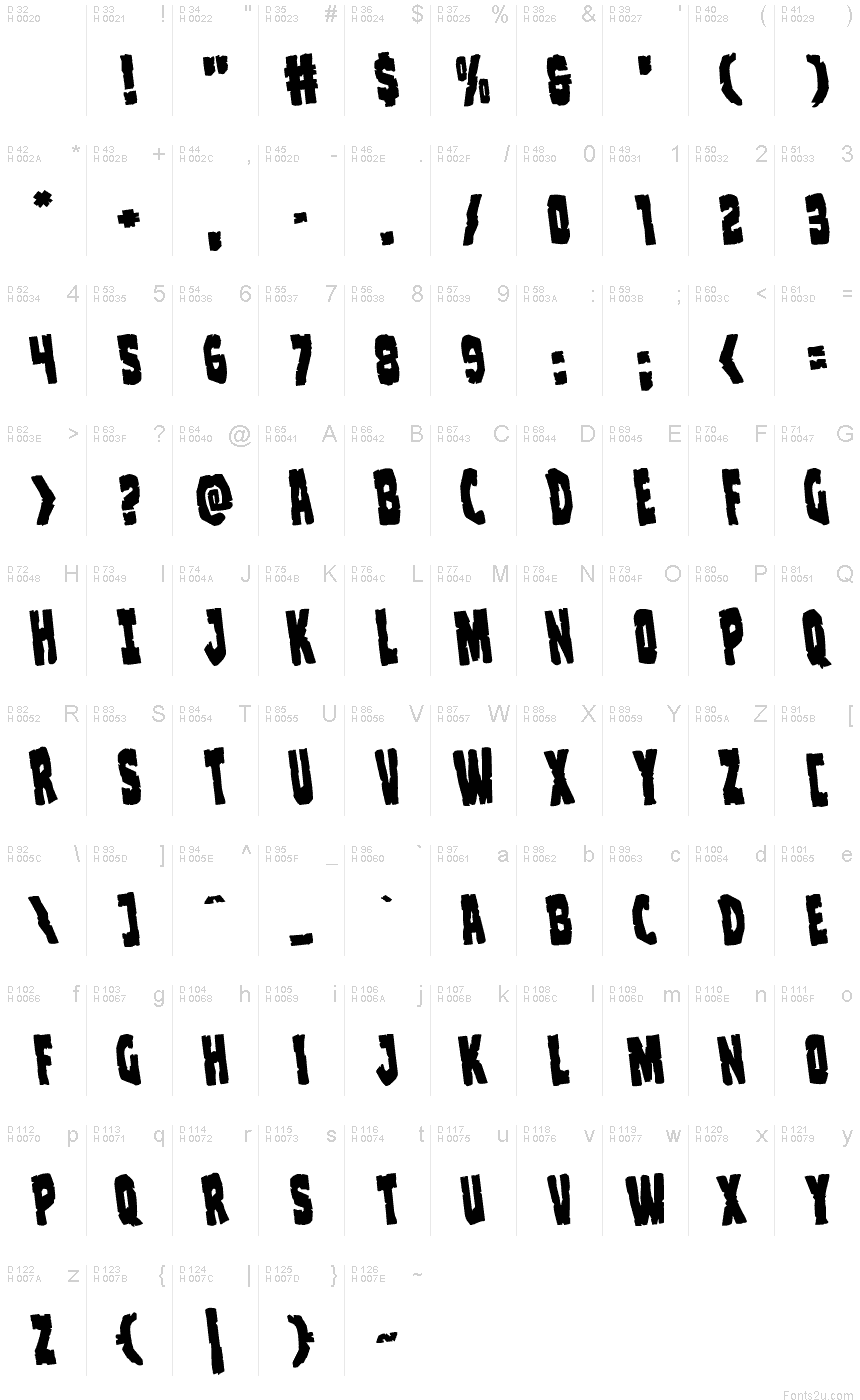
Clubber Lang Rotate, a free distorted comic display font created by Iconian Fonts in 2013, uses towering, heavy caps with a restless, jagged silhouette. Uneven angles, pinched joints, and sudden notches make the lettering look battered and in motion.
It is especially suited to fight posters, where the blunt weight and lurching shapes suggest impact before any illustration appears. Arcade game titles can use that same exaggerated aggression. On sports merchandise, theatrical event graphics, or loud music packaging, the crooked forms become part of the action rather than neutral lettering.
Clubber Lang Rotate